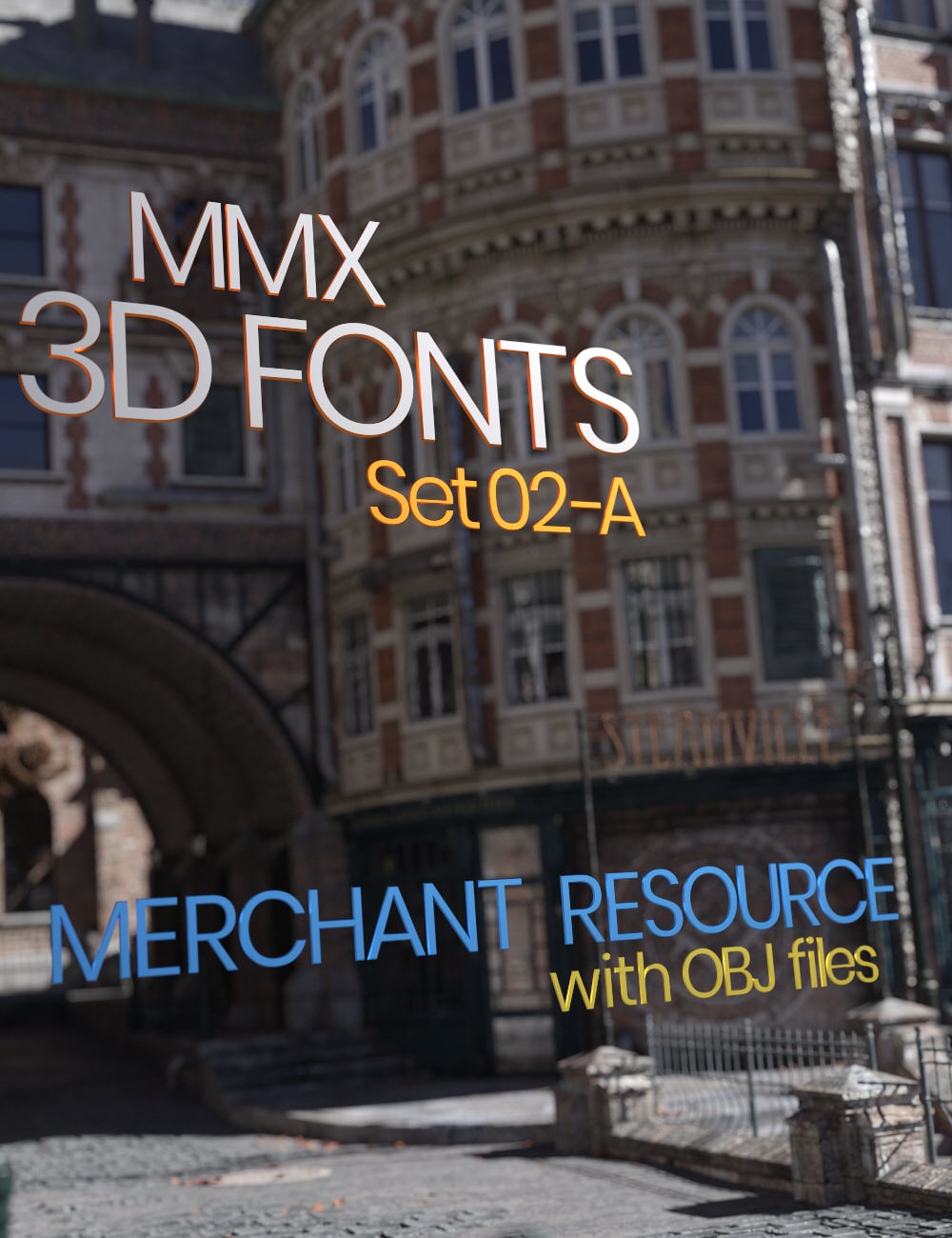
MMX 3D Fonts 02-A Merchant Resource
This is a set of 400 font props.The set is an embossed styled font, where the base is larger then the top.
It comes in 4 different font types, standard, bold, italic and bold italic.
For each of those there are 26 upper case letters, 26 lower case letters, 10 numbers and 38 special characters.